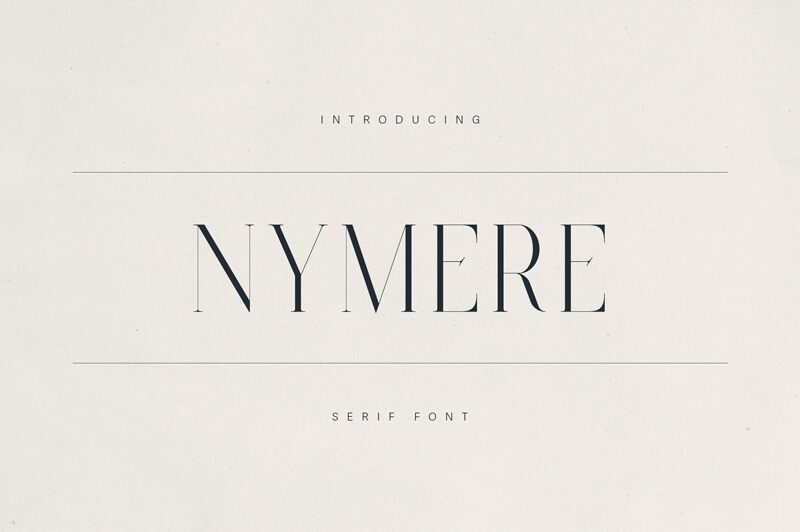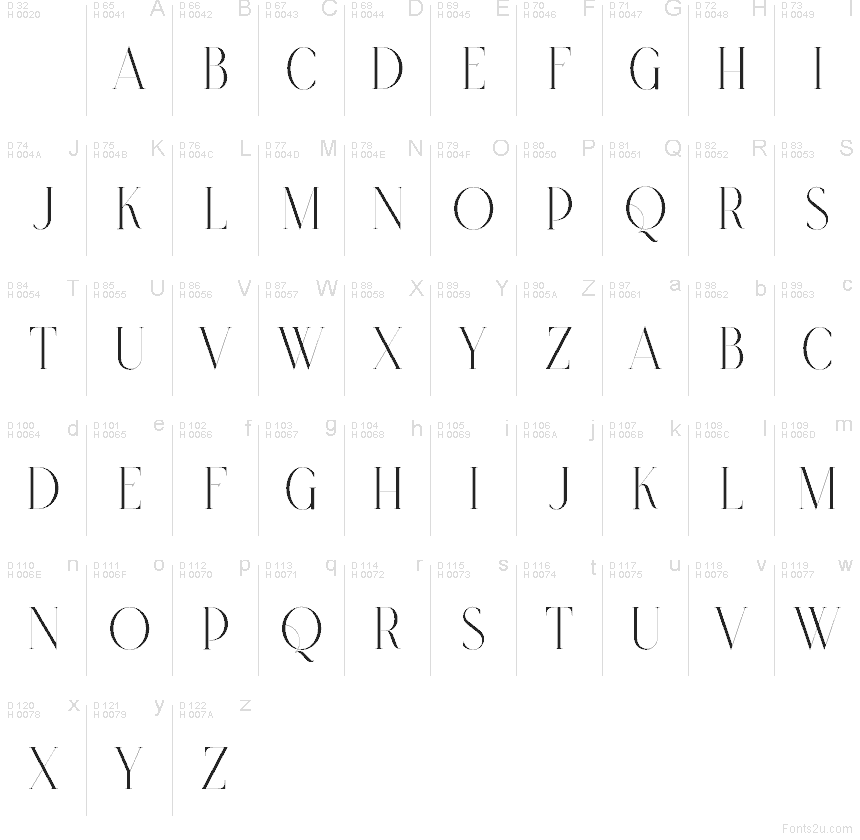
Nymere font by VPcreativeshop draws the eye with its razor-thin verticals, sharp flared serifs, and tall, statuesque proportions that feel straight out of a fashion editorial. This free serif typeface has a sleek, glossy character—like ink stretched to a fine edge—giving headlines an elegant tension between delicacy and drama. The generous spacing lets each letter breathe, so even very bold titles stay airy and refined.
Using Nymere, you can instantly dial up the drama on magazine covers, luxury branding, perfume or cosmetics packaging, posters, wedding stationery, and polished social media graphics. This free font shines when set large, where its slender details can really show. For body text or captions, pair Nymere with a clean geometric sans to keep the typography balanced and effortless.